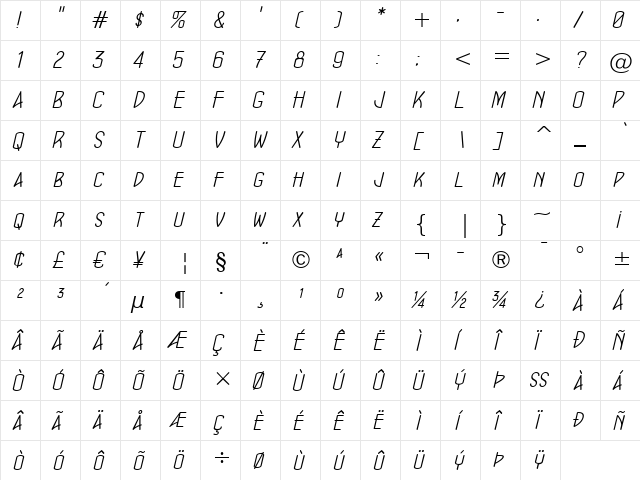
ConcursoModerne BTN Lt Oblique Font Preview
Design Context for ConcursoModerne BTN Lt Typeface
ConcursoModerne BTN Lt offers clean, dependable letterforms without strong stylistic allegiance, making it a practical choice for designers who need flexibility. Its italic angle brings a sense of urgency and motion to the letterforms. The delicate stroke weight brings airiness and refinement to layouts.
Pro Tip: Use ConcursoModerne BTN Lt for emphasis, pull quotes, and subheadings where its slanted energy can add rhythm to the layout.